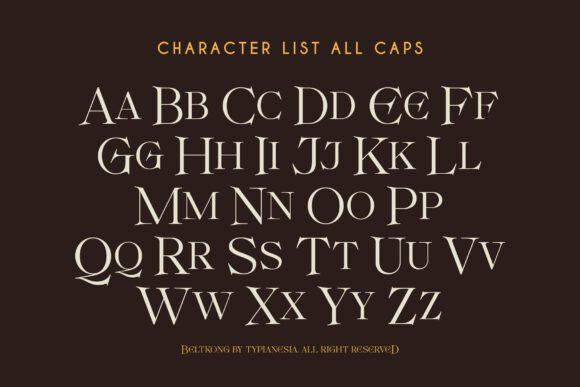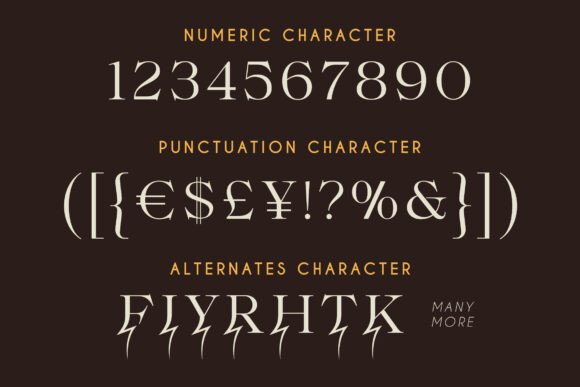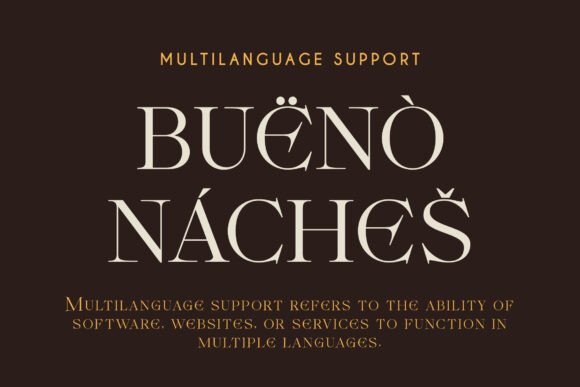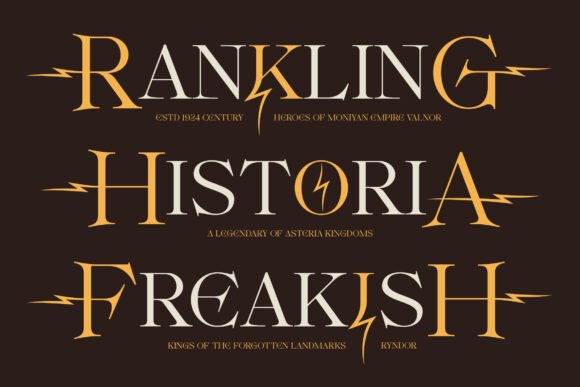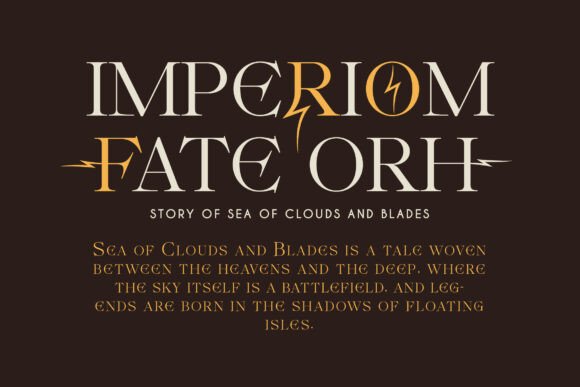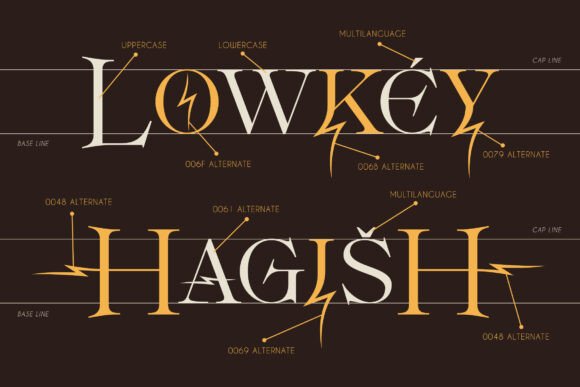
Discover the Enchanting World of Beltkong Font
I’ll never forget the struggle I faced while working on a fantasy-themed book cover project. My client wanted a font that would transport readers to a mystical realm, but I was stuck with the usual sans-serifs and script fonts. That’s when I stumbled upon Beltkong Font, a game-changing Fantasy Serif Font that merged the elegance of traditional serif fonts with the whimsy of fantasy design. In this article, I’ll share my journey with Beltkong, its features, and how to make the most of it in your creative projects.
A Personal Review of Beltkong Font
What I Love About Beltkong ✨
- ✅ Elegant and Fantasy-Infused Design: Beltkong’s bold, striking characters are perfect for projects that require a blend of sophistication and fantasy flair.
- ✅ Smooth Character Combinations: The font features a complete set of uppercase and lowercase letters, punctuation, numerals, and unique alternates, making it ideal for body text and headlines.
- ✅ Extensive Multilingual Support: With support for multiple languages, Beltkong is a versatile choice for global applications.
- ✅ Intricate Detailing and Fantasy Elements: The font’s design is rich in fantasy elements, adding a touch of mystique and grandeur to any project.
While Beltkong is an exceptional font, there are a few minor limitations to consider:
- 🤔 Glyph Limitations: Some users may find the glyph set limited for certain languages or design requirements.
- 🤔 Not Suitable for All Design Styles: Beltkong’s fantasy-inspired design may not be the best fit for projects requiring a more minimalist or modern aesthetic.
The Story Behind Beltkong Font
Beltkong Font was designed with the intention of bridging the gap between classic serif fonts and fantasy-inspired design. The creator, a typography enthusiast, aimed to craft a font that would evoke a sense of mystique and grandeur, perfect for projects that require a touch of magic. With its intricate detailing and fantasy elements, Beltkong has become a go-to font for designers seeking to add a unique, fantastical flair to their work.
Q: What type of projects is Beltkong Font best suited for?
A: Beltkong Font is ideal for projects that require a blend of elegance and fantasy, such as book covers, fantasy-themed games, movie titles, posters, music branding, packaging, and logo design.
Q: Does Beltkong Font support multilingual languages?
A: Yes, Beltkong Font offers extensive multilingual support, making it a versatile choice for global applications.